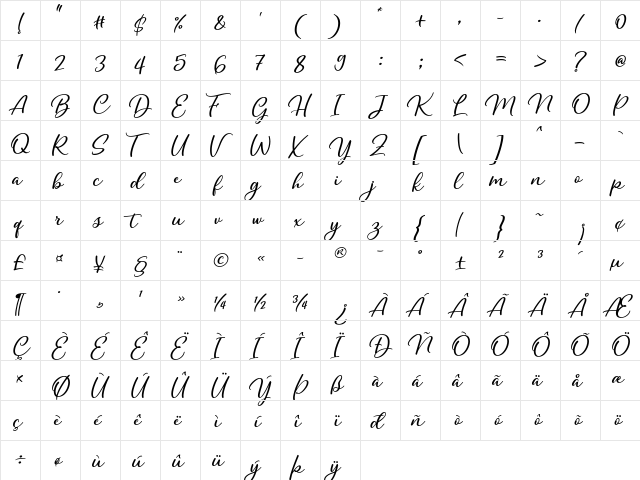
Yukikato Regular
| Foundry | 7NTypes |
| Designer | Keitzo; Situjuh Nazara |
Design Context for Yukikato Typeface
Yukikato is a composed and adaptable typeface that performs quietly and consistently across a wide range of design contexts.